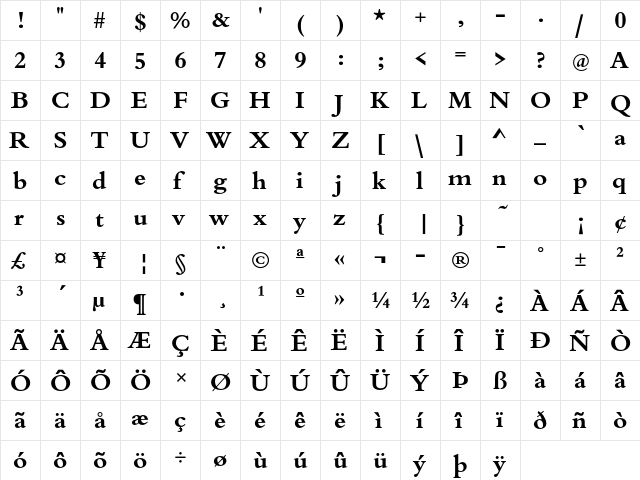
Bergamo Std Bold
Design Context for Bergamo Std Typeface
Bergamo Std takes a measured approach to typography — its balanced proportions and neutral character make it a reliable workhorse for both digital and print work. The heavy weight commands attention and anchors typographic hierarchies.